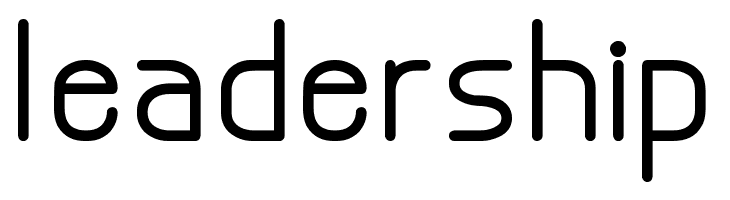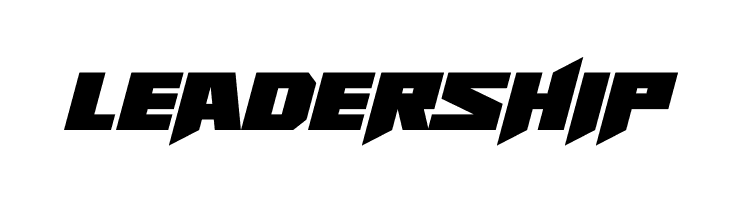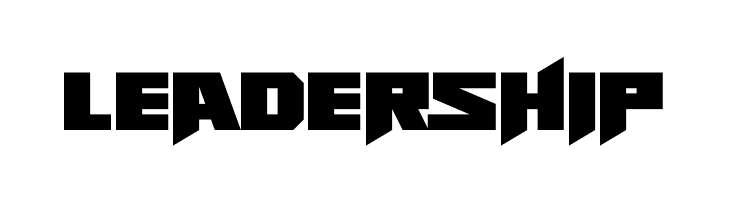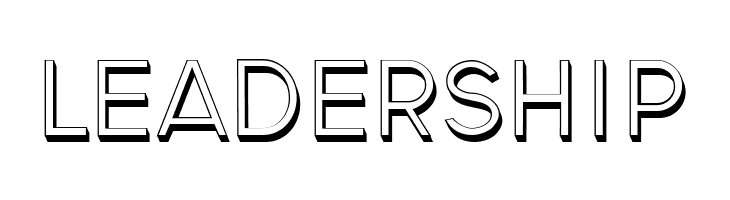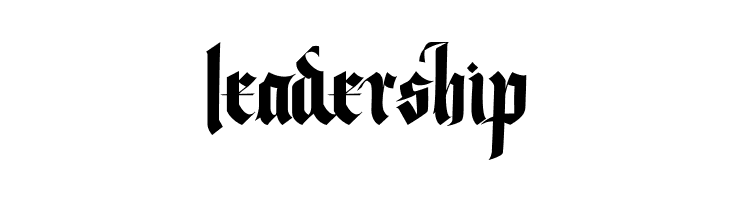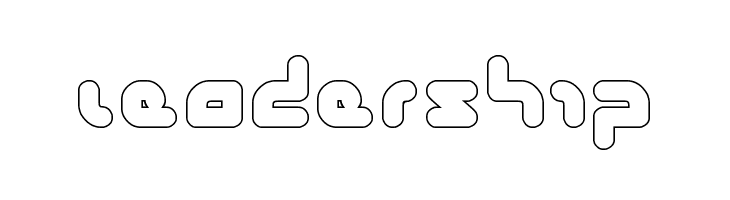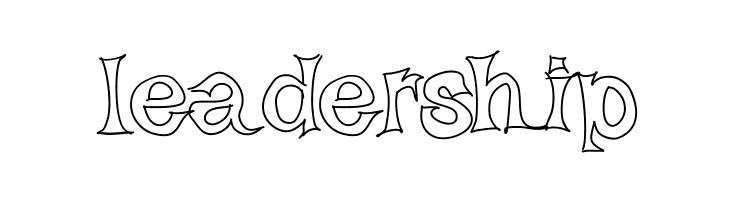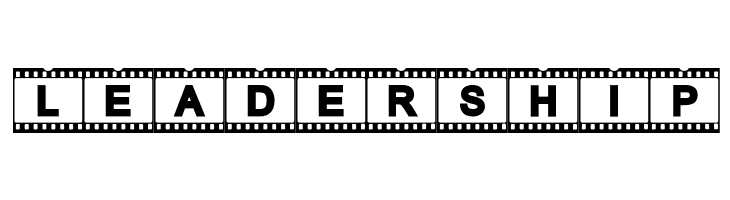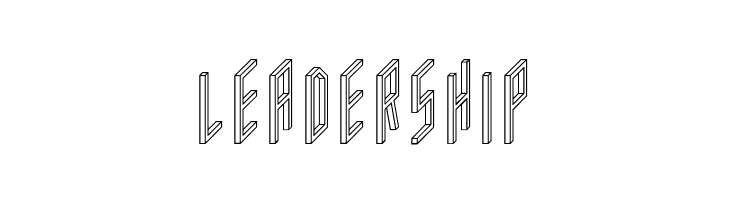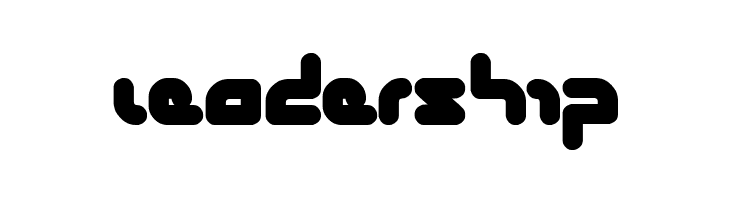
• AbstractToConcrete
Abstract, illustrative font with playful, hand-drawn and geometric glyphs.
• Abstractus
• abstrak
A bold, geometric font with a modern and decorative style.
• Abstraktes Regular
A modern, geometric font with a shadowed, three-dimensional effect.
• ABSTRASCTIK
A bold, futuristic font with geometric shapes and rounded edges.
• ABSTRASCTIK Italic
A bold, geometric, and abstract font with a futuristic, italicized style.
• ABSTRASCTIK-Hollow
A futuristic, hollow geometric font with bold, angular lines.
• ABSTRASCTIK-Light
A bold, futuristic font with geometric shapes and thick strokes.
• Abstrec font tfb
A modern, rounded geometric font with uniform width and clean lines.
• Absurdsans FP
A bold, playful font with abstract and dynamic letterforms.
• Abu Dhabi
A cursive, handwritten font with elegant, flowing letters.
• Abuget
A dynamic, cursive script font with medium contrast and expressive strokes.
• Abuse
A bold, dramatic blackletter font with intricate detailing.
• Abwechselnschrift Bold
A bold, modern sans-serif font with clean lines and excellent readability.
• Abygail
A decorative script font with elegant loops and swirls, perfect for artistic projects.
• Abyssal Horrors
A bold, angular font with a modern, aggressive style.